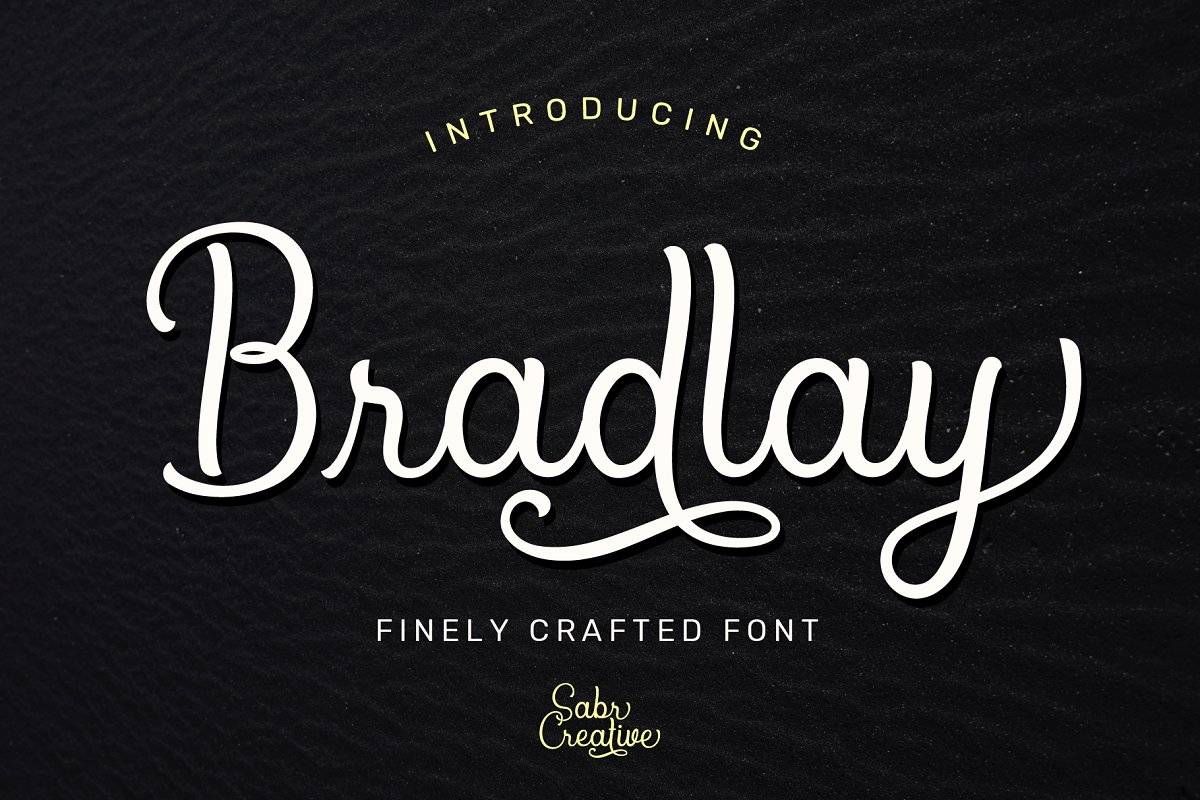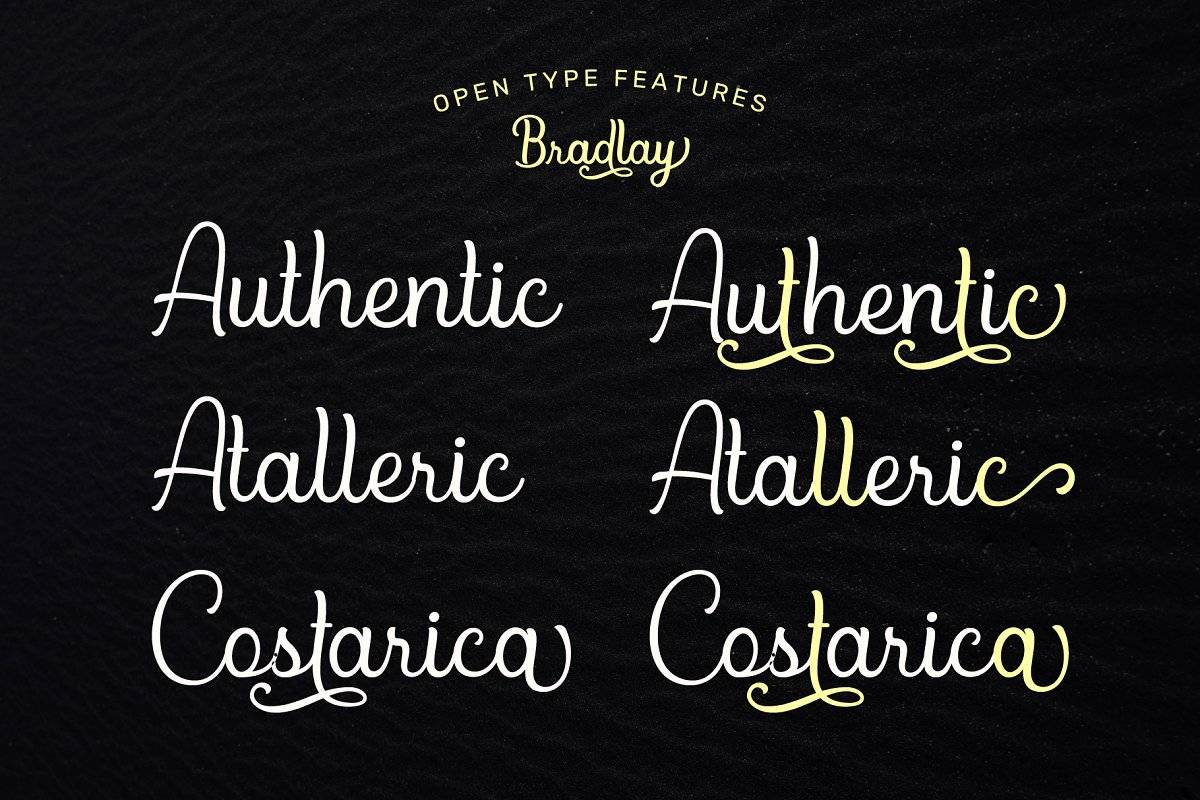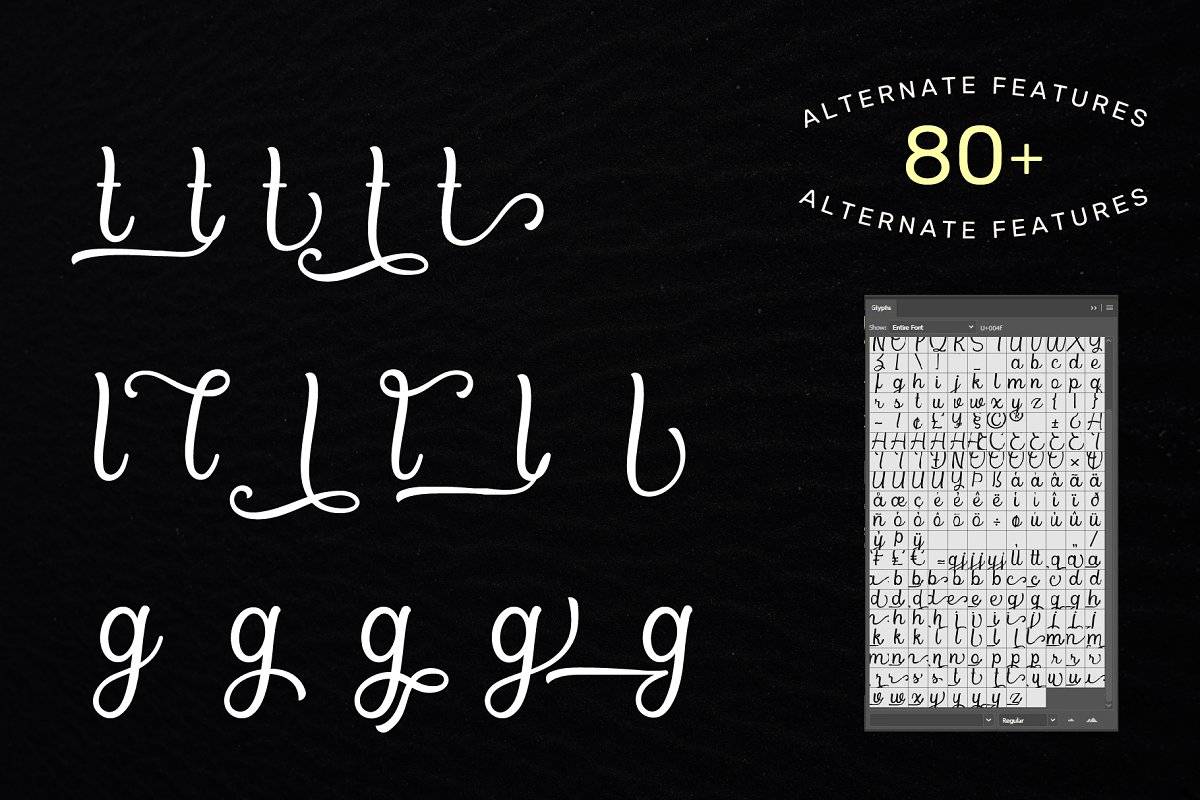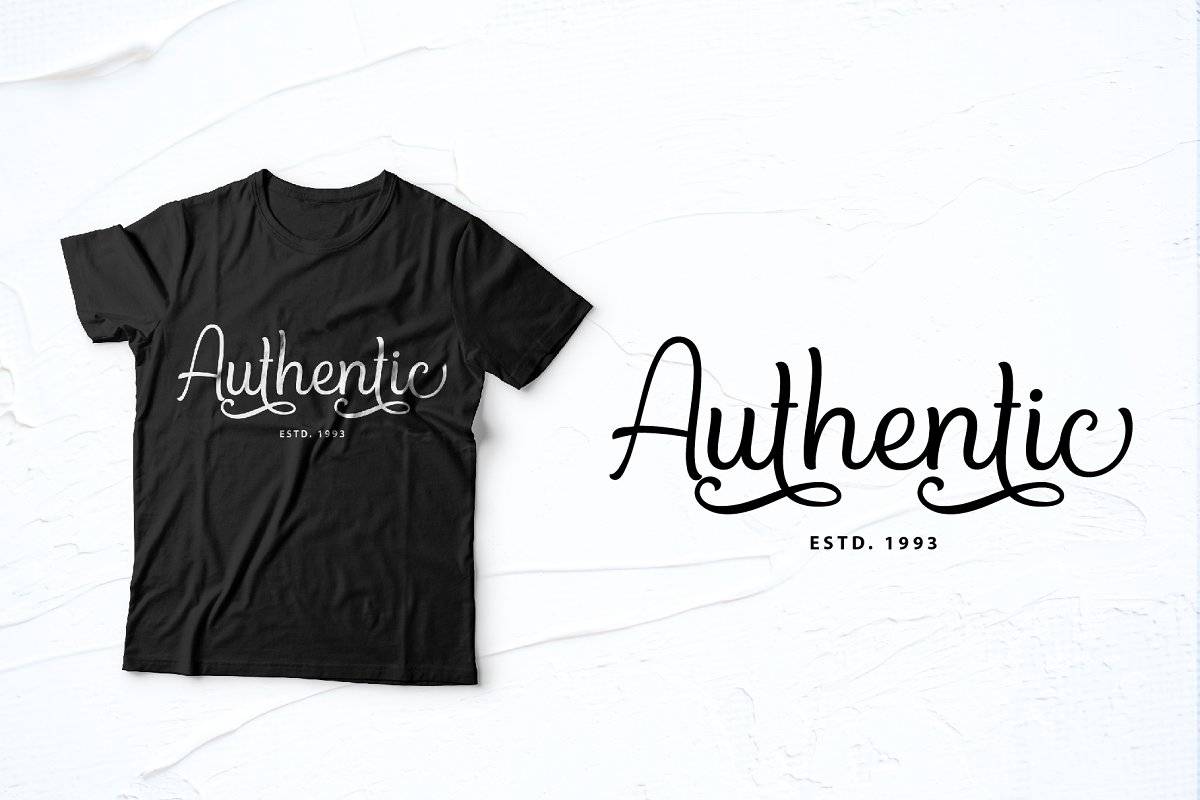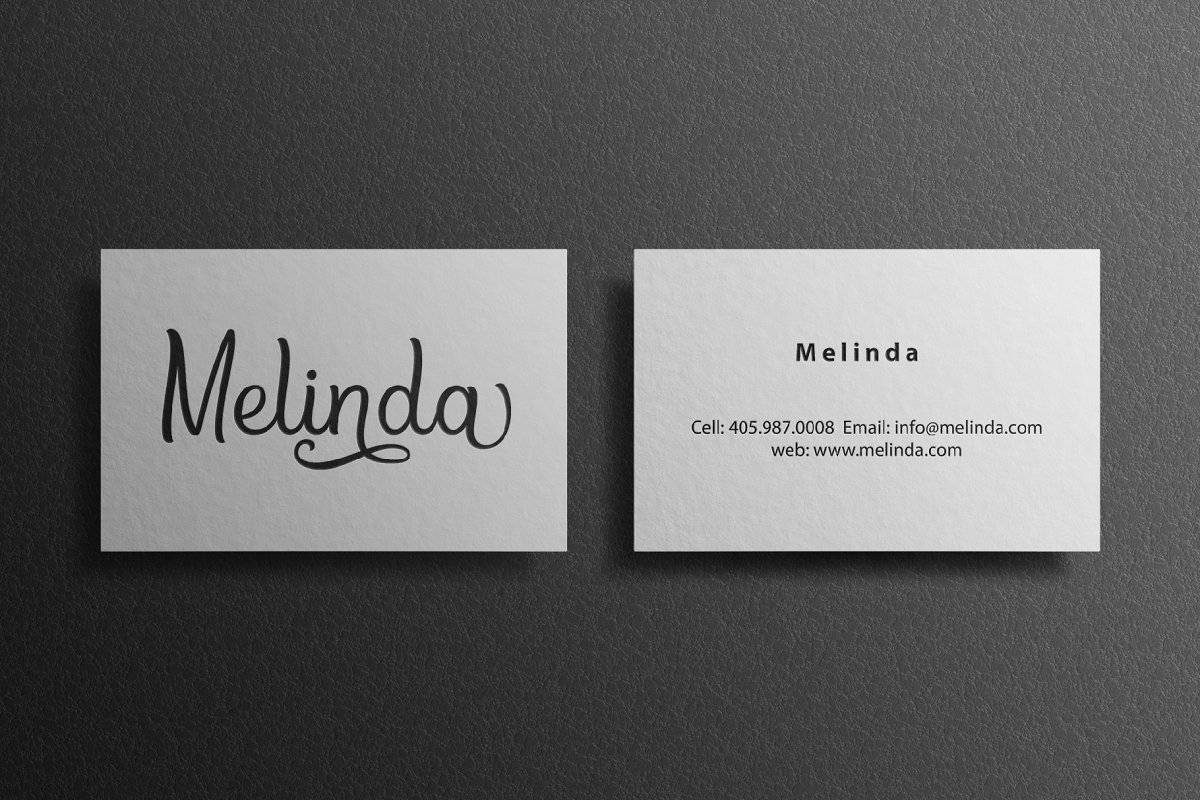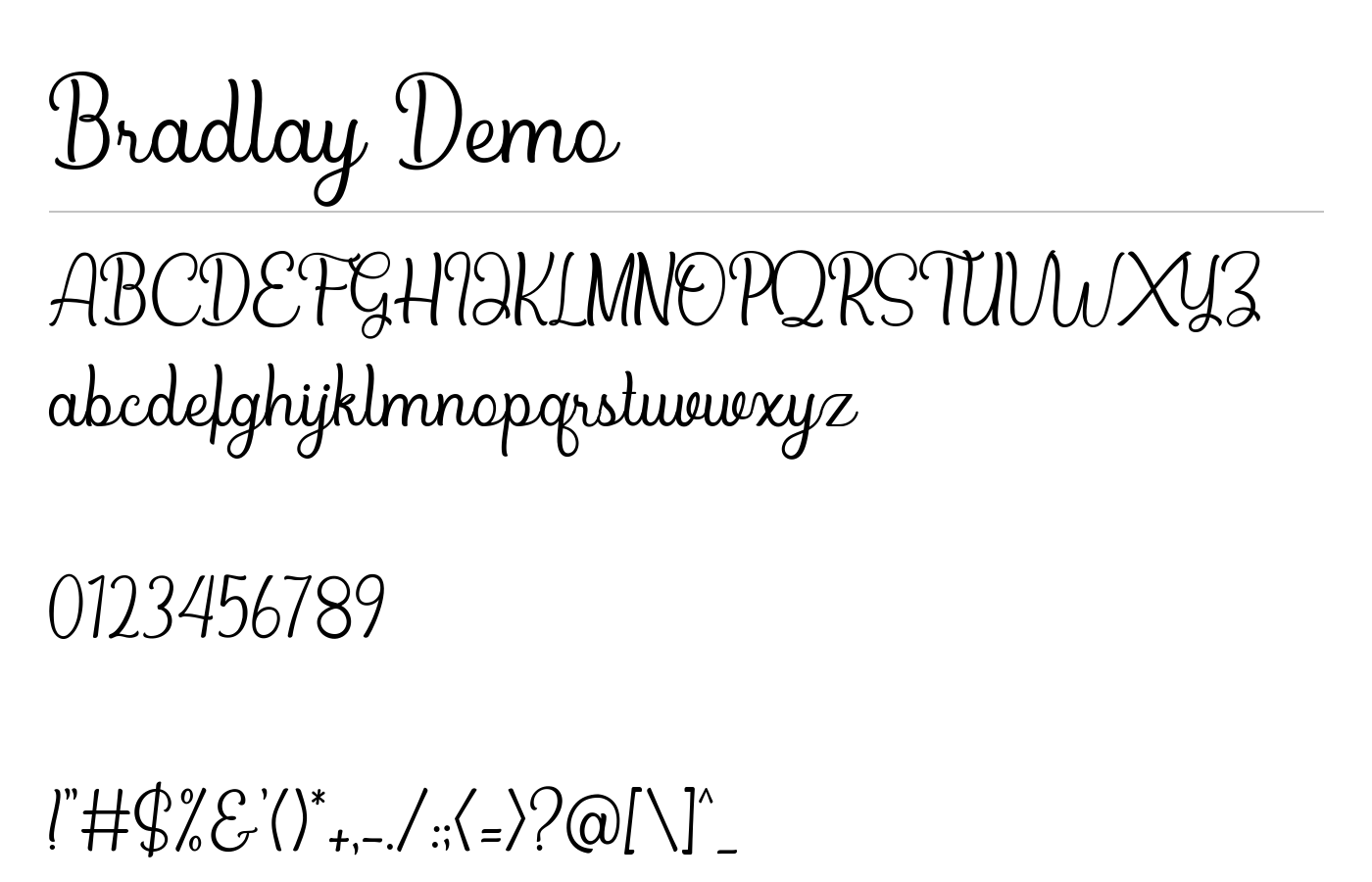
Bradlay is a delicate script font with a light and airy feel, featuring smooth, rounded strokes and a subtle slant that adds elegance without sacrificing readability. Its thin lines and handwritten style make it perfect for invitations, branding, and any design aiming for a charming, personal touch with a sophisticated yet approachable vibe. This font works especially well for fashion, beauty, and lifestyle projects that seek a graceful and stylish personality.
Bradlay Font
About Bradlay Font